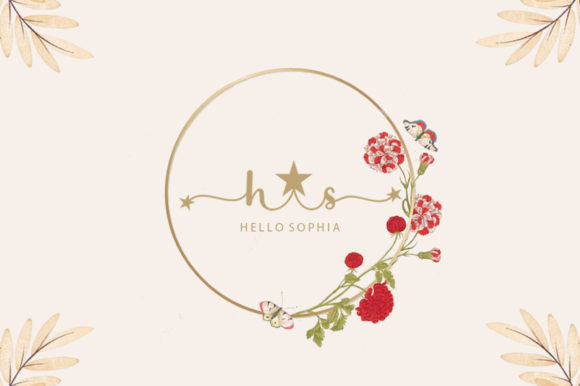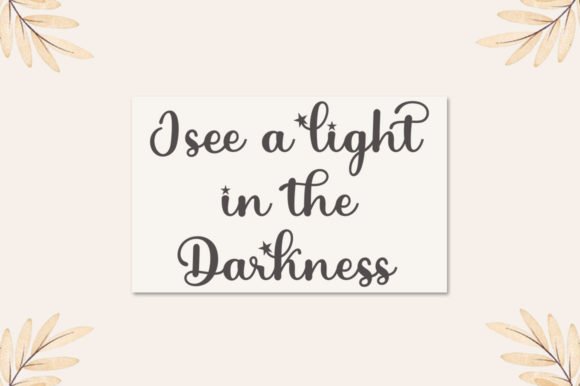
Juslia Sophia Font
db-ku.com - Script & Handwritten -- Juslia Sophia is a romantic and sweet calligraphy typeface with characters that dance along the baseline. It has a casual, yet elegant touch. This font is PUA encoded which means you can access all of the glyphs and swashes with ease!